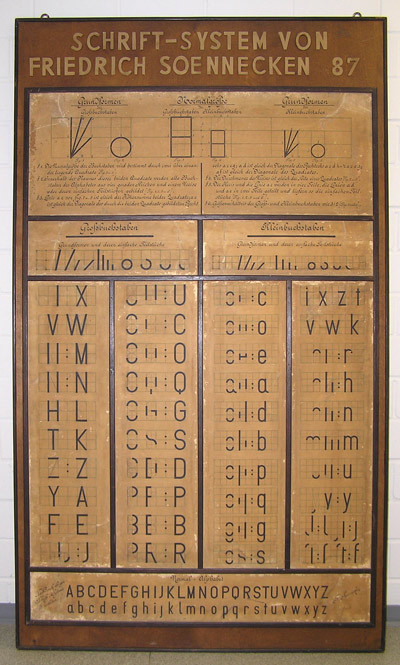
Friedrich Soennecken developed a construction kit for uppercase letters for primary school children in 1913. Soennecken had been inspired by the pedagogue Froebel, who worked with building blocks based on the elementary shapes sphere, cube and pyramid. As a logical continuation Soennecken developed a writing system based on lines and circles. With his construction kit the children composed the characters from a set of straight and circular metal elements. An underlying grid helped the children to position the elements.